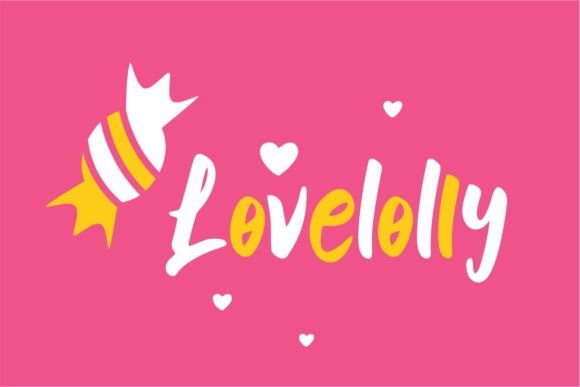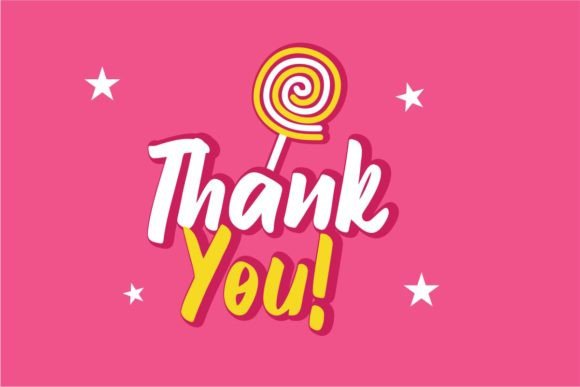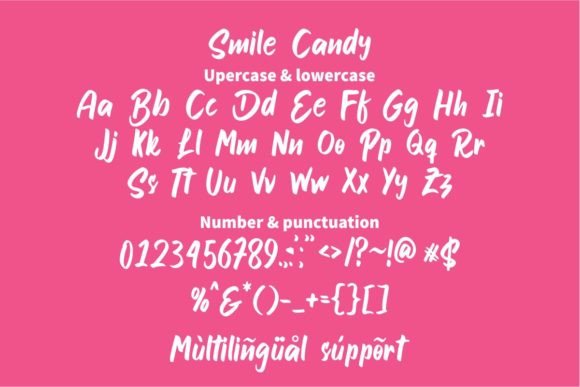
Introduction to Smile Candy Font
Smile Candy is a bold and fun handwritten font.
It’s playfulness make it great for creative projects, be it inspirational wall posters or for communicating your brand .
Key Features of Smile Candy Font